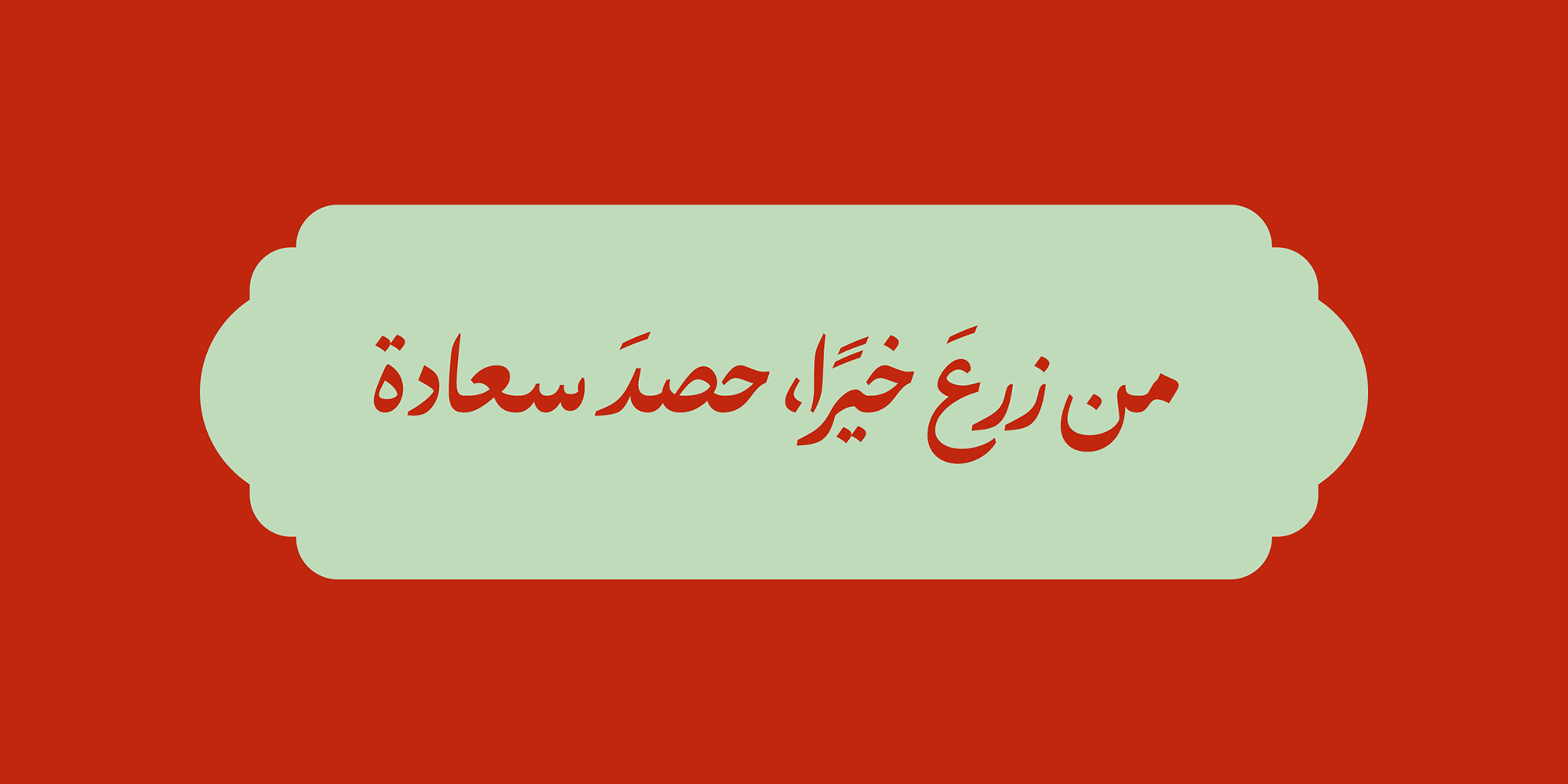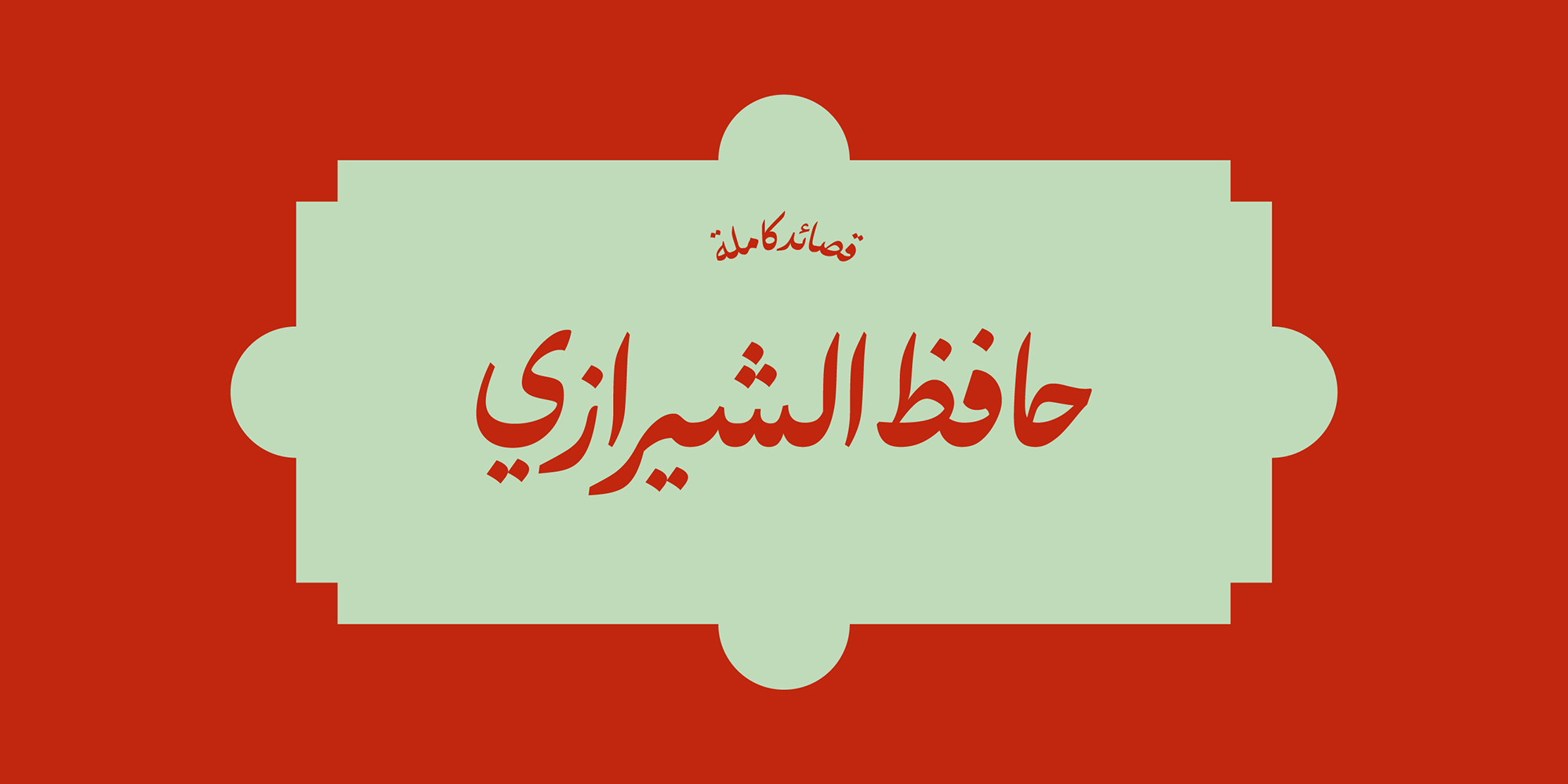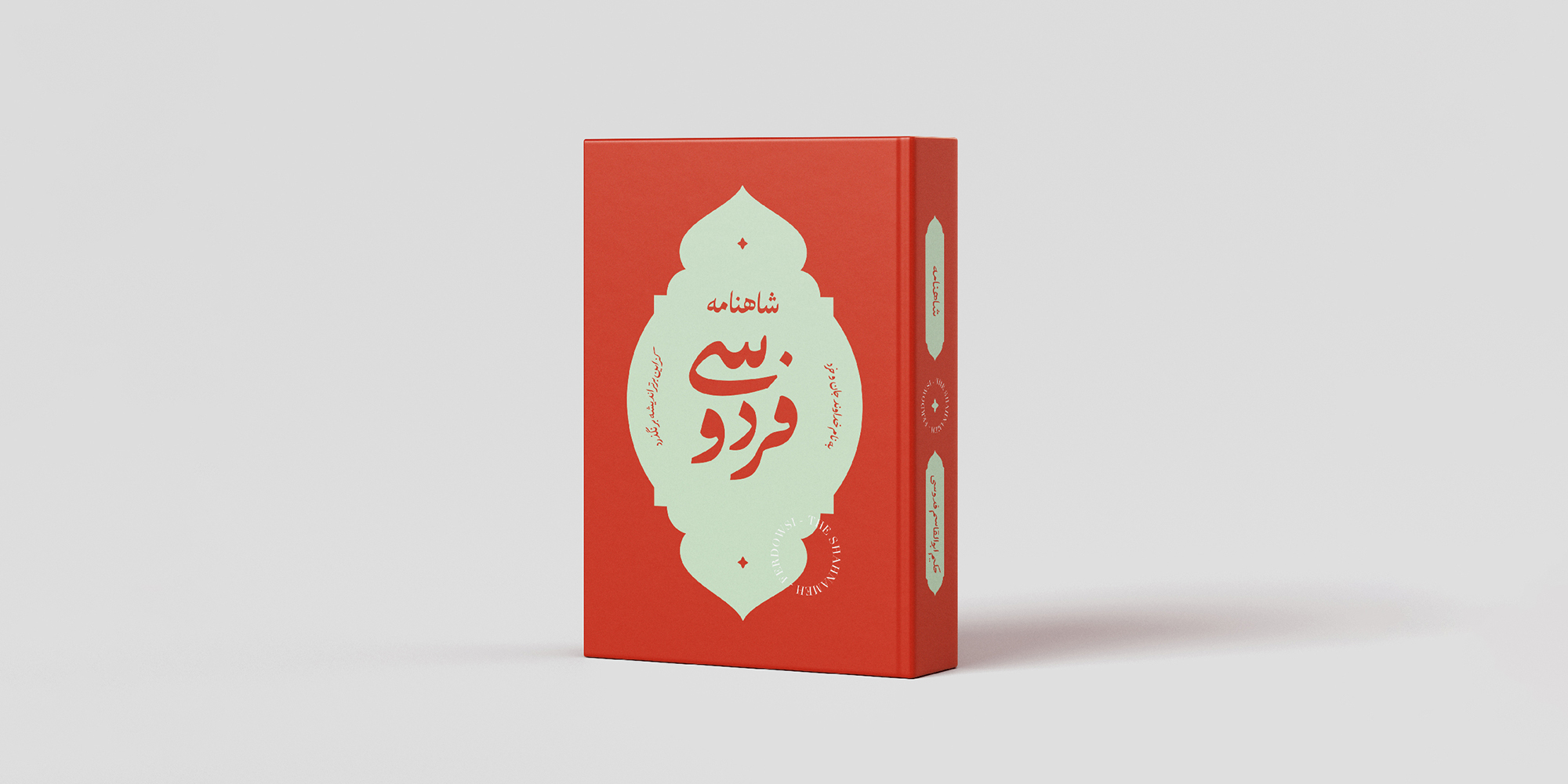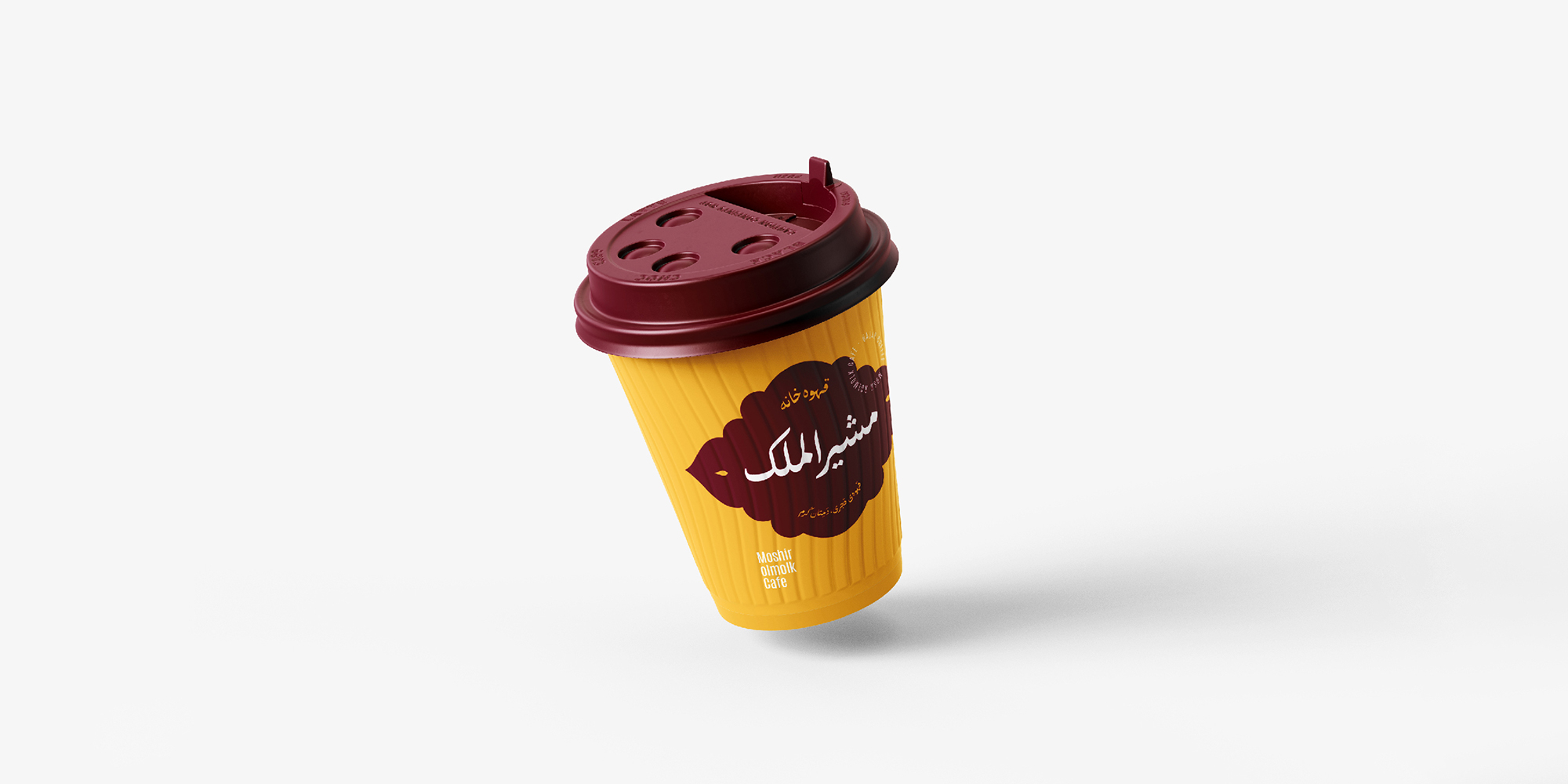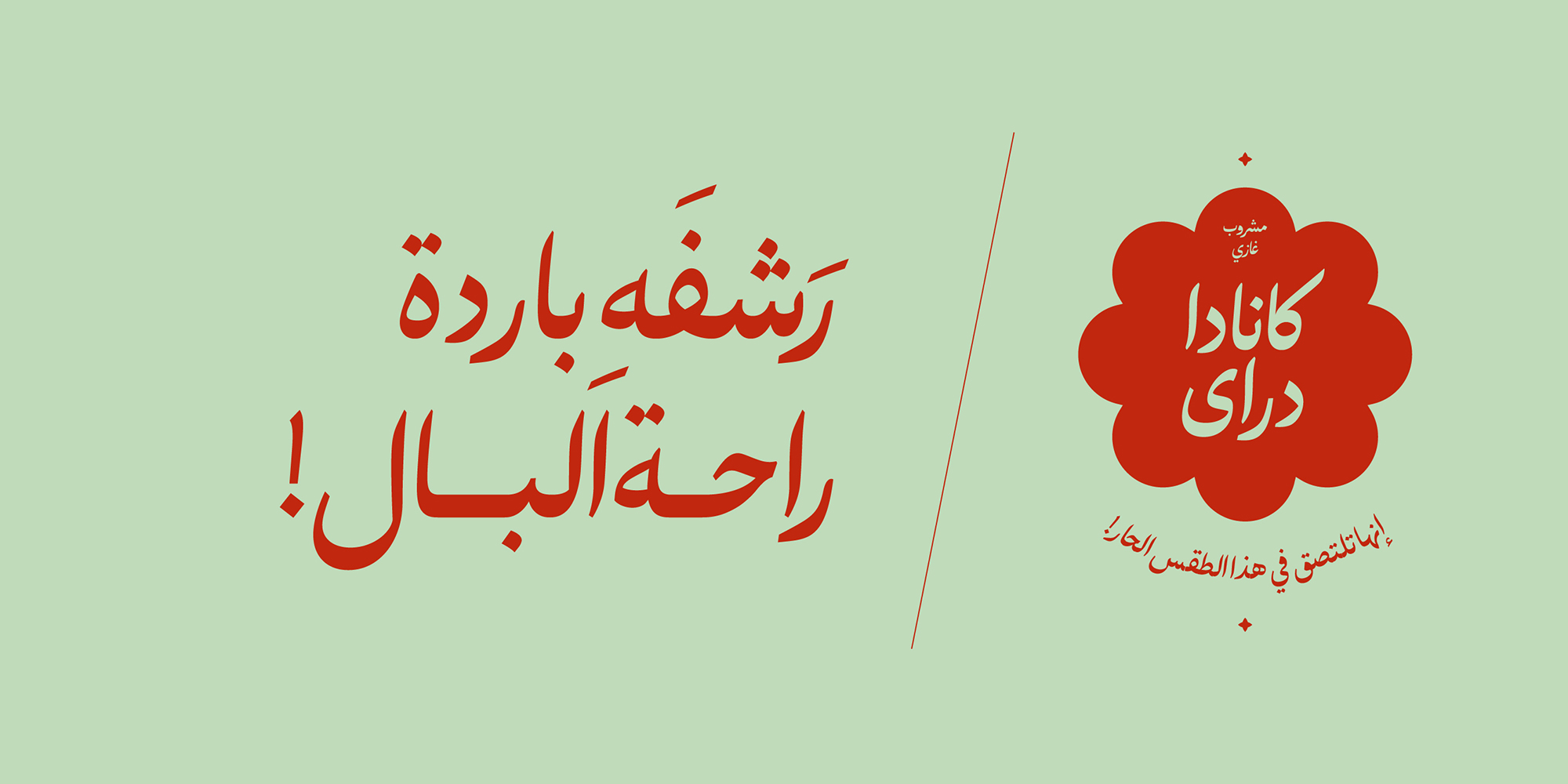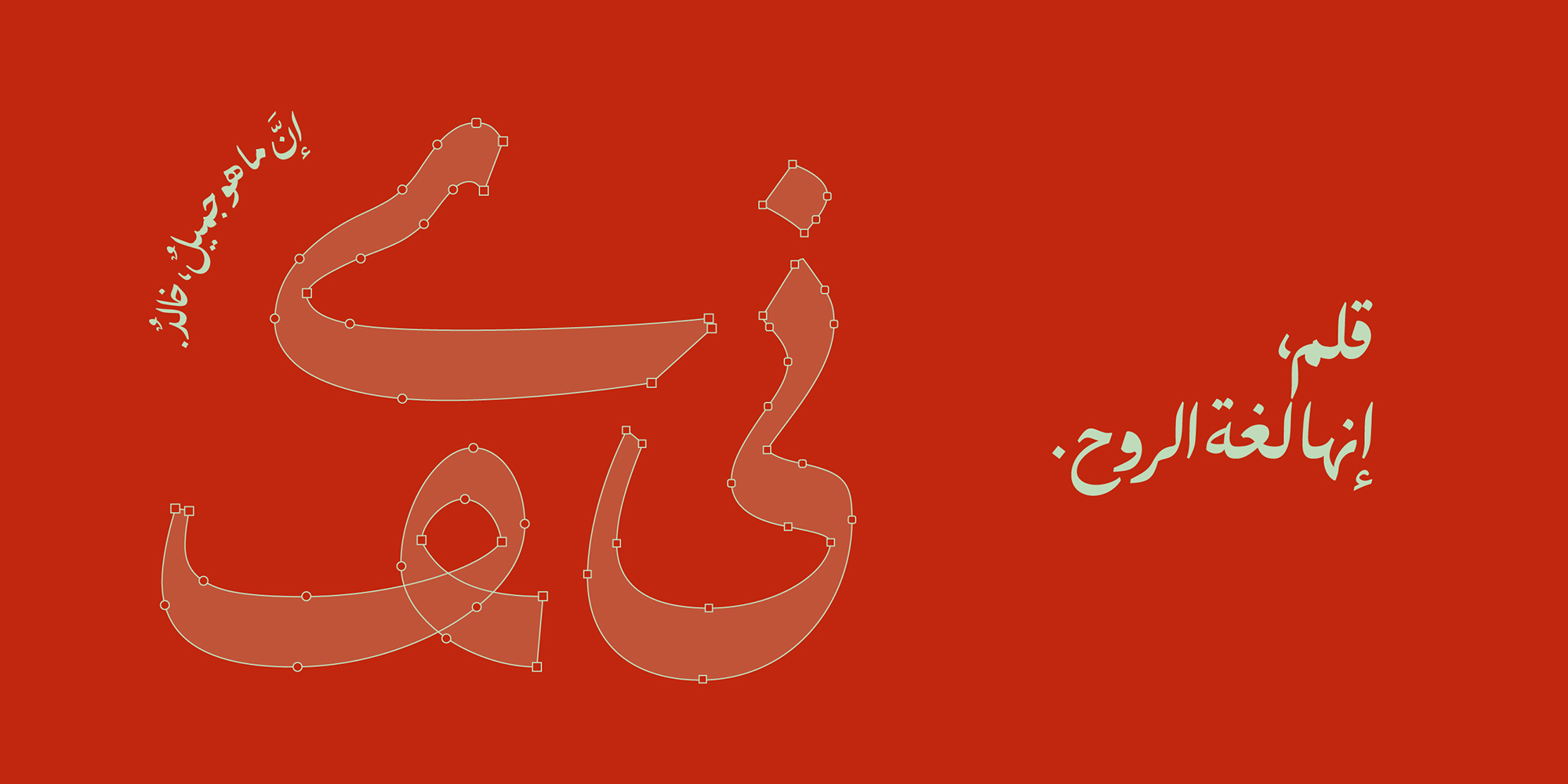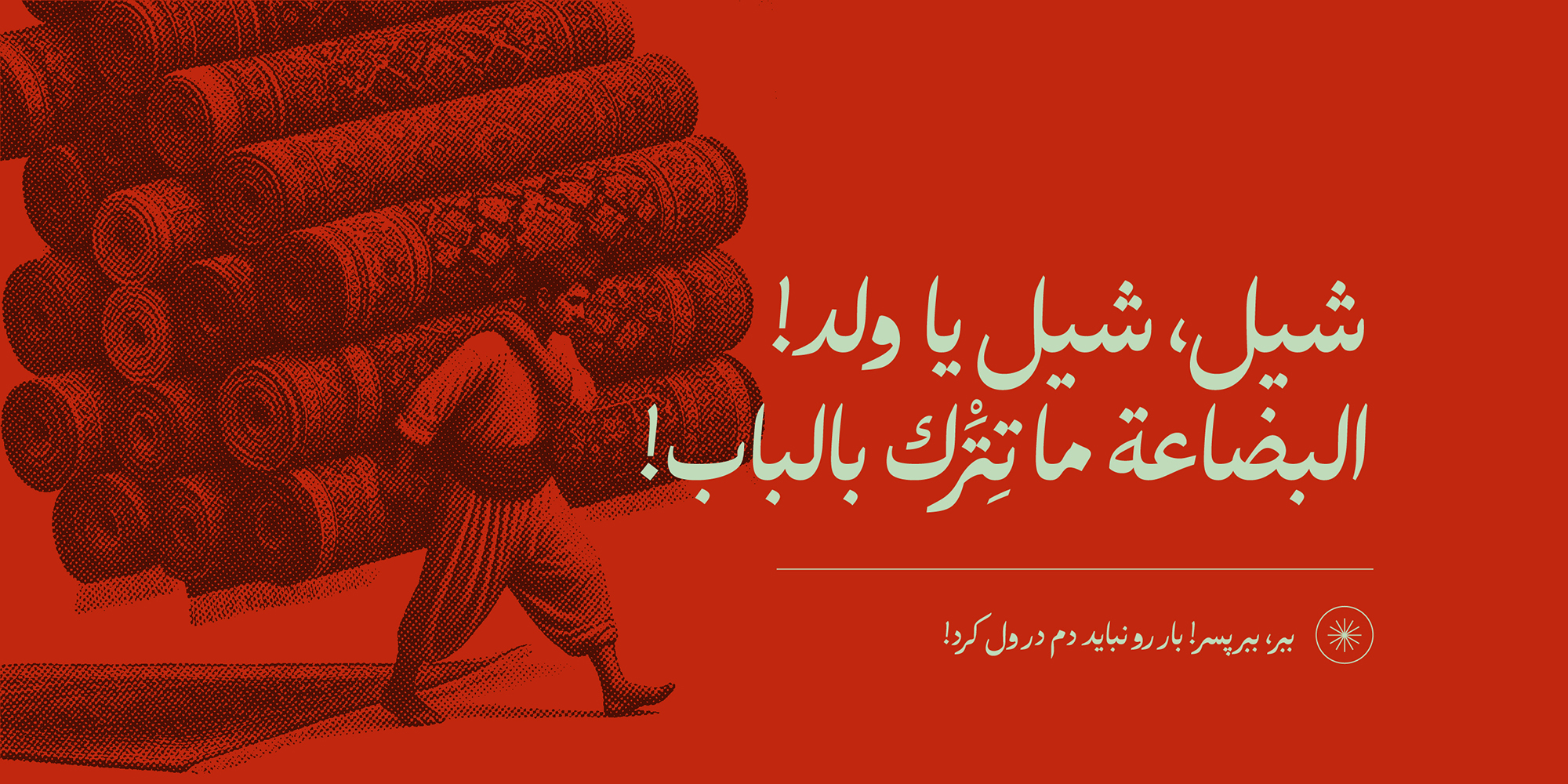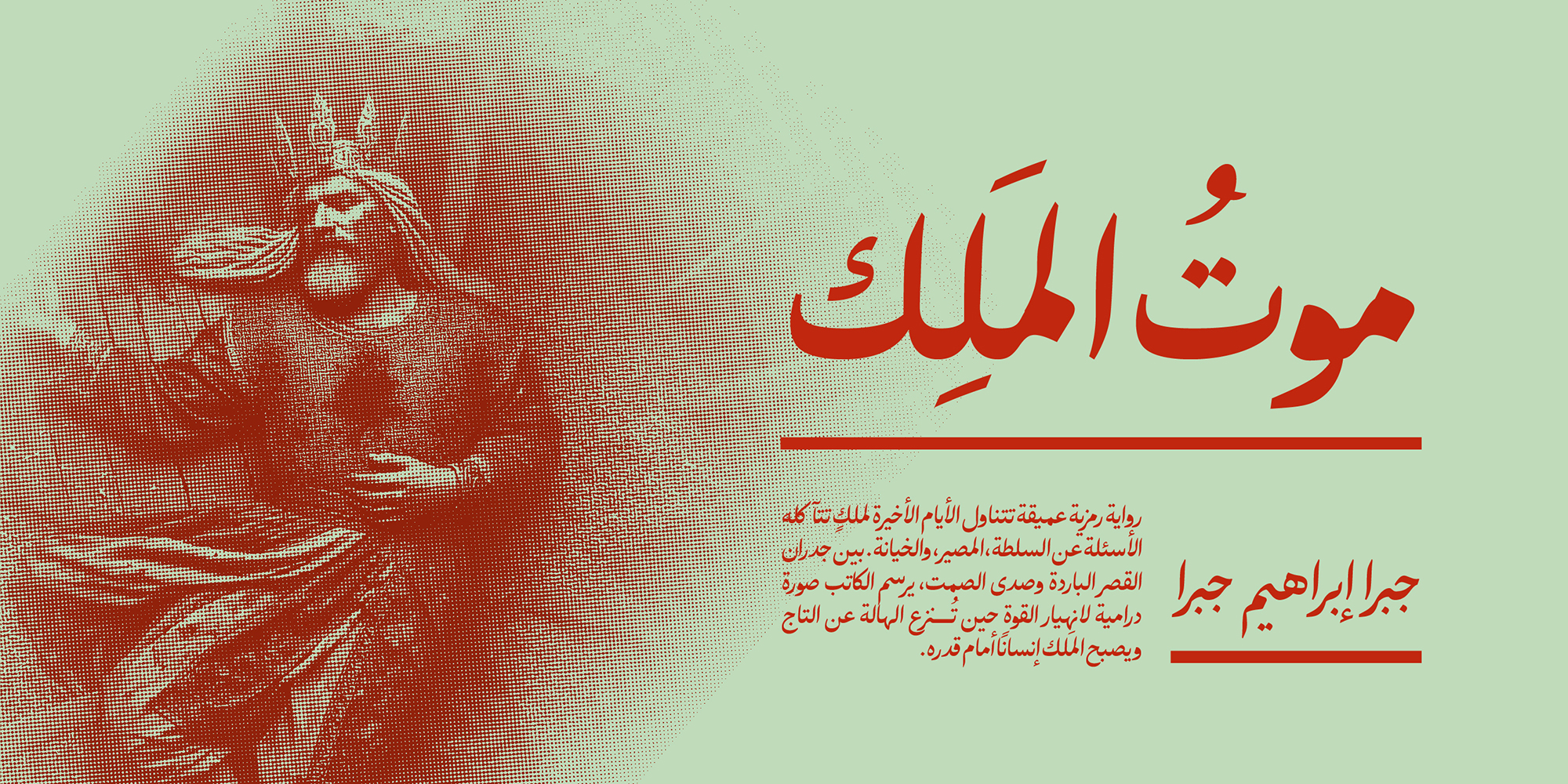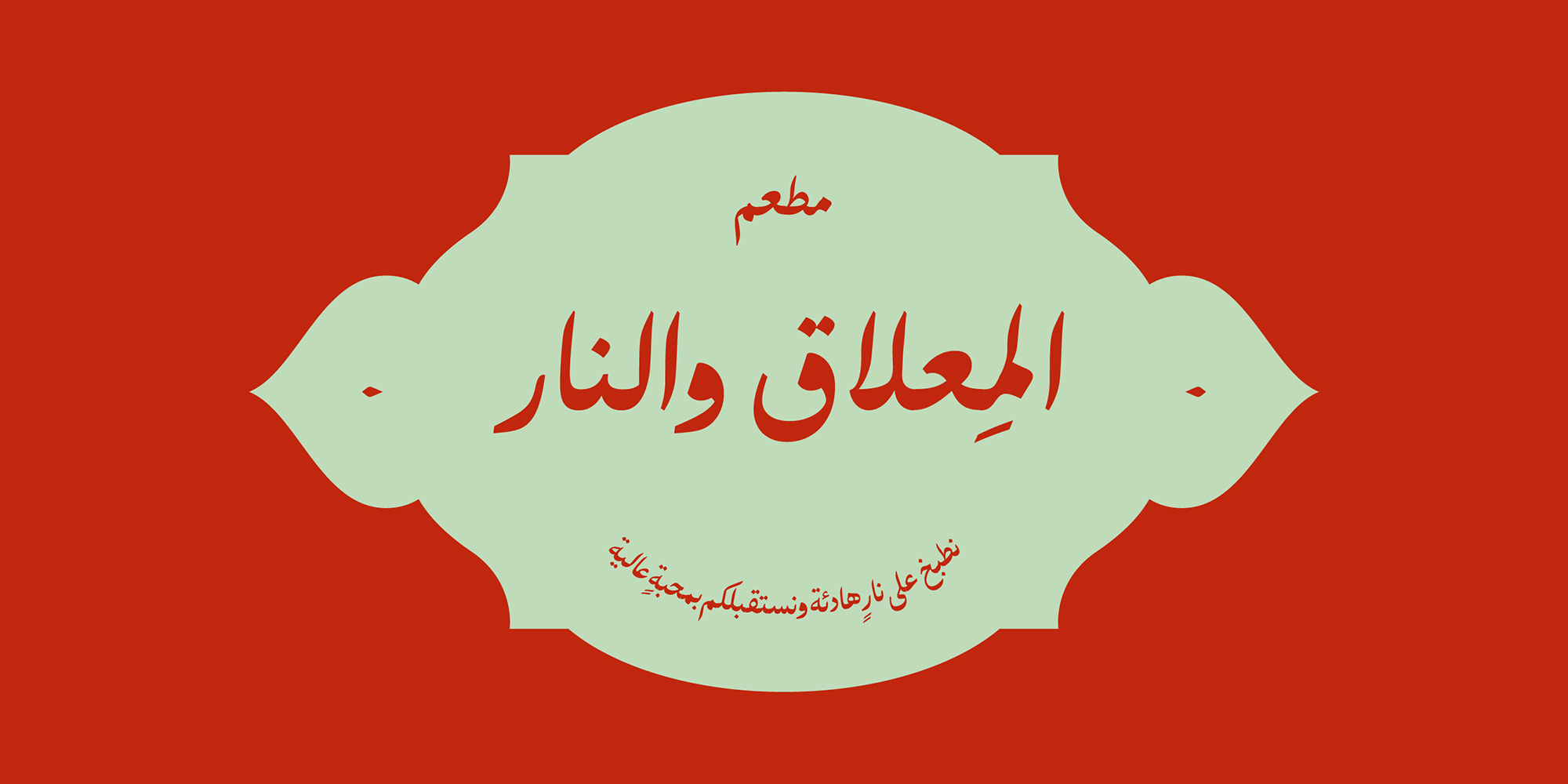
Hafez
A font that greets the contemporary world from the heart of tradition.
The Hafez font was inspired by two magnificent pillars of Iranian calligraphy, Nastaliq and Naskh. In designing this font, an effort has been made to preserve the originality and spirit of classical lines, while blending the readability and order of Naskh with the elegance and poetic flow of Nastaliq; a combination that ultimately resulted in the creation of a font that combines the beauty of tradition with modern applications.
One of the striking features of this font is the specific and precise placement of the Nastaliq forms on the Kursi line; a move that has allowed the structure of this font to remain beautiful, coherent, and balanced. "Hafez" is not only visually pleasing, but also functional and flexible.
The Hafez font has a wide range of applications: from cultural and artistic projects to literary, philosophical, and media works with themes of old Tehran, tradition, wisdom, and dignity. This font can well convey a sense of authenticity, wisdom, and history while remaining up-to-date for both digital and print environments.
Hafez is not just a typeface, but a bridge between our golden past and our fast-paced present.